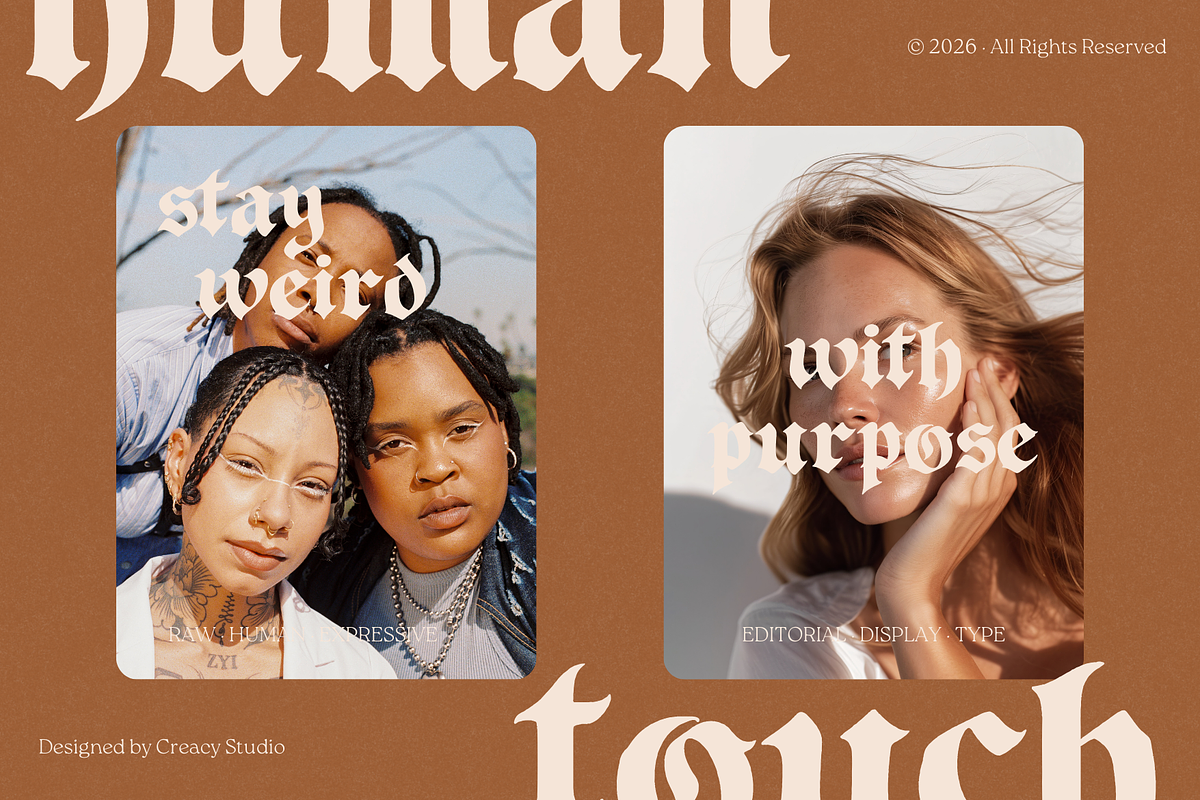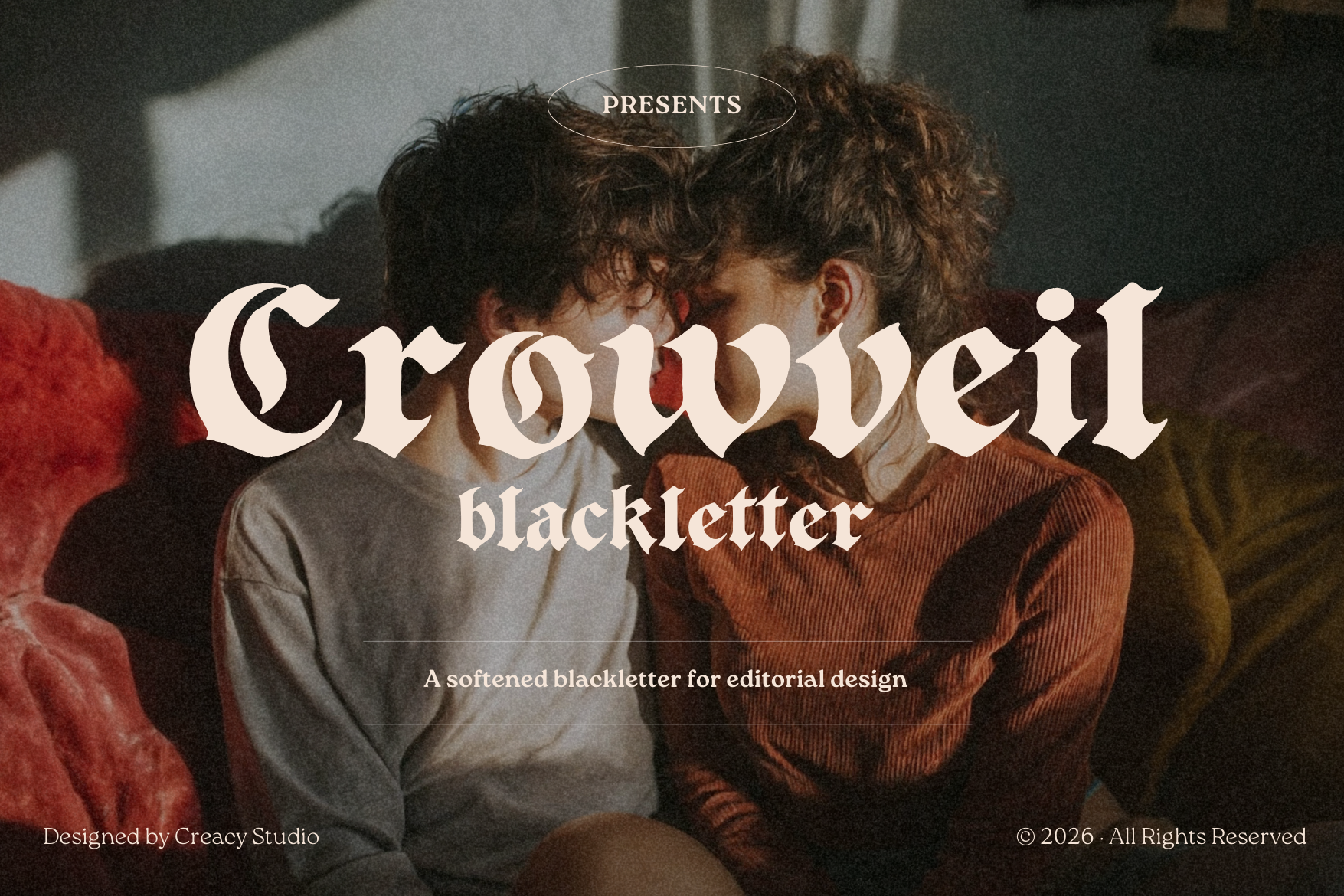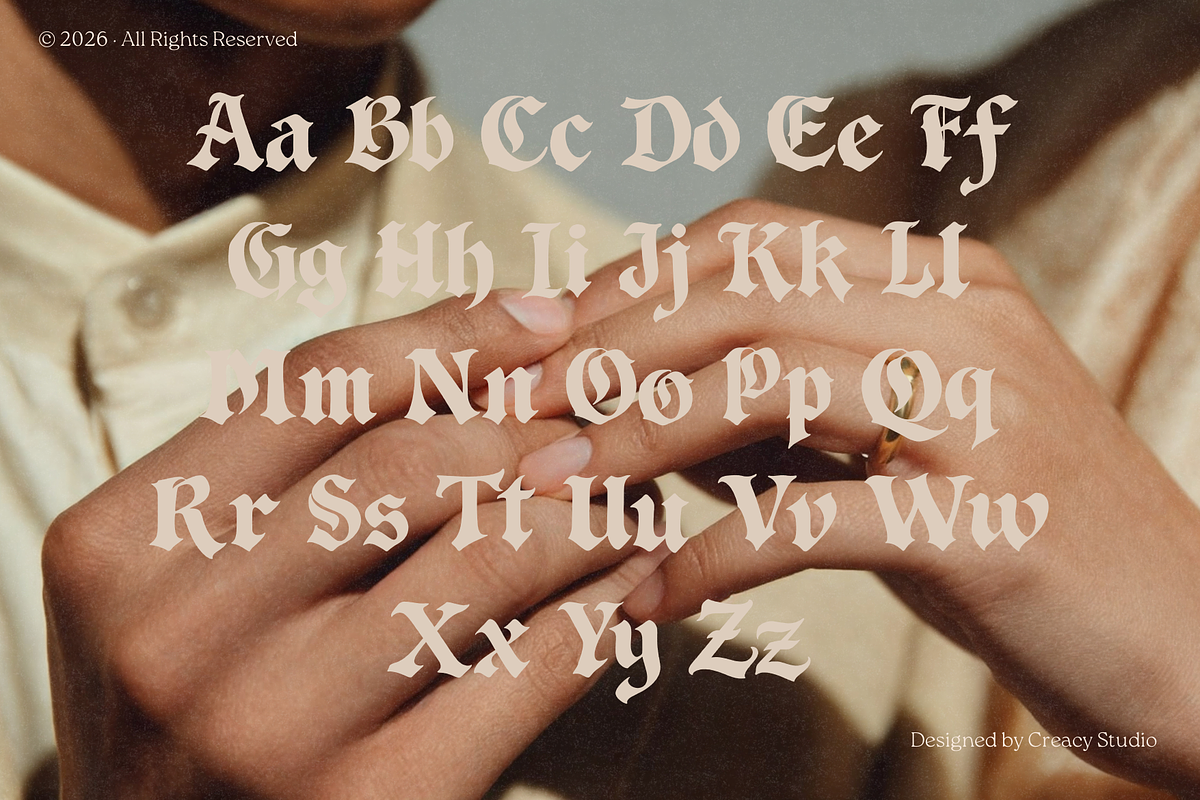
Crowveil Soft Gothic Display Font
Crowveil Blackletter — Soft Gothic Display Typeface
Crowveil Blackletter is a modern reinterpretation of classic blackletter typography, softened for contemporary editorial and creative use. Designed to balance gothic character with organic warmth, this typeface delivers a poetic, expressive tone without feeling rigid or overly historical.
Unlike traditional blackletter fonts, Crowveil features rounded edges, open counters, and subtle stroke modulation, making it more readable and versatile for modern layouts while preserving its dramatic presence.
This font is ideal for designers seeking a romantic, expressive, and slightly unconventional display type that stands out while remaining elegant and intentional.
Key Characteristics
- Softened blackletter style with modern proportions
- Organic curves and smooth, handcrafted details
- Balanced contrast for improved readability
- Expressive yet controlled gothic personality
- Designed specifically for editorial and display use
- Editorial layouts & magazine headlines
- Fashion branding & lookbooks
- Art posters & album covers
- Quote designs & expressive typography
- Creative branding, packaging, and visual identities
Design Intent
Crowveil Blackletter was created to evoke emotion, individuality, and visual storytelling. It works beautifully when paired with photography, soft color palettes, and expressive layouts—making it especially suitable for editorial, artistic, and concept-driven projects.
Designed by Creacy Studio with a focus on timeless character and modern usability.